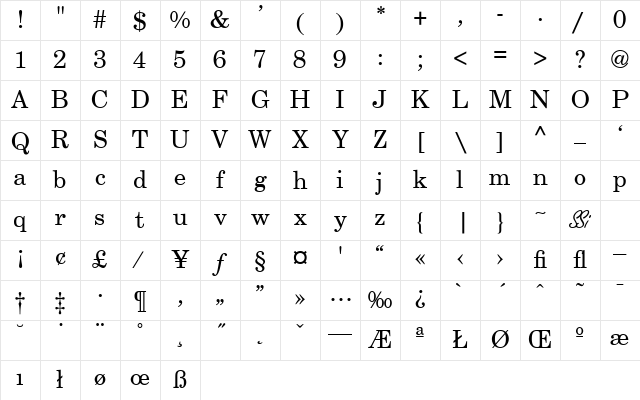
Century Schoolbook SSi Regular
Century Schoolbook SSi Family
Century Schoolbook SSi Regular
Complete Century Schoolbook SSi Regular glyph index. Displaying only characters natively supported by Century Schoolbook SSi Regular font.
Design Context for Century Schoolbook SSi
Century Schoolbook SSi is a composed and adaptable typeface that performs quietly and consistently across a wide range of design contexts.
Pro Tip: Use Century Schoolbook SSi in both headline and body roles to test its range before committing to a single application.